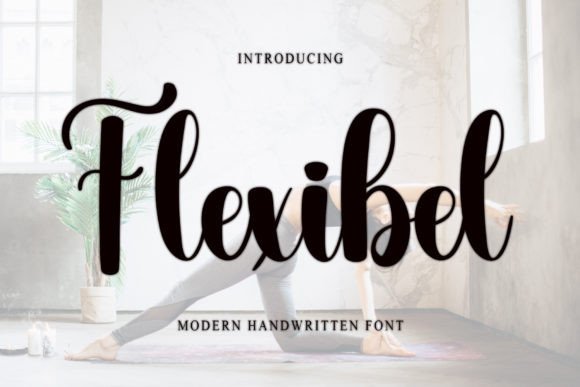
Introducing Flexibel Font: Elevate Your Designs with Timeless Elegance
In the world of typography, a stylish handwritten font can make all the difference in bringing a touch of personality and sophistication to your designs. Look no further than Flexibel Font, a contemporary and impeccably crafted typeface that draws inspiration from timeless classic calligraphy. With its balanced and varied aesthetic, Flexibel Font is the perfect addition to enhance the beauty of your projects.
The Inspiration Behind Flexibel Font
Flexibel Font is rooted in the rich tradition of calligraphy, where the art of beautiful handwriting has been perfected over centuries. The font’s design is inspired by the classic calligraphic styles that have stood the test of time, yet it presents a modern twist that makes it highly versatile for a wide range of applications. Whether you’re working on a branding project, crafting a beautiful wedding invitation, or designing a captivating poster, Flexibel Font offers the perfect blend of elegance and contemporary flair.
Key Features of Flexibel Font
So, what makes Flexibel Font stand out from other typefaces? Here are some of its key features:
- Balanced and Varied: The font boasts a balanced and varied design, ensuring that your text remains legible and aesthetically pleasing, even at smaller sizes. This versatility makes it suitable for a wide range of projects, from digital content to print materials.
- Stylish Handwritten Aesthetic: With its stylish handwritten appearance, Flexibel Font adds a personal touch to your designs. The font’s contemporary atmosphere ensures that your projects look modern and relevant, while its impeccable form guarantees a high level of professionalism.
Applications of Flexibel Font
Flexibel Font’s versatility makes it an excellent choice for various design projects. Here are some of the many applications where Flexibel Font truly shines:
- Branding and Logotypes: Create a lasting impression with a unique and memorable brand identity. Flexibel Font’s elegant and modern design makes it perfect for crafting logos that stand out.
- Wedding and Event Stationery: Add a touch of sophistication and romance to your wedding invitations, save-the-date cards, and other event materials with Flexibel Font’s beautiful handwritten aesthetic.
- Posters and Flyers: Make your promotional materials pop with Flexibel Font’s stylish and contemporary design. Its legibility and visual appeal ensure that your message gets across effectively.
- Digital Content: Enhance your website, blog, or social media graphics with Flexibel Font’s modern and elegant appearance. Its versatility ensures that it works well across various digital platforms.
- Combine with Other Fonts: Flexibel Font works well when paired with other fonts. Try combining it with a sans-serif font for a modern contrast or with a serif font for a classic look.
Flexibel Font is a stylish and versatile typeface that brings a touch of timeless elegance to your designs. Its impeccable form, balanced aesthetic, and PUA encoding make it an excellent choice for designers and crafters looking to elevate their projects. Whether you’re working on branding, stationery, posters, or digital content, Flexibel Font offers the perfect blend of contemporary flair and classic sophistication. Add Flexibel Font to your collection today and discover the difference it can make in your designs.